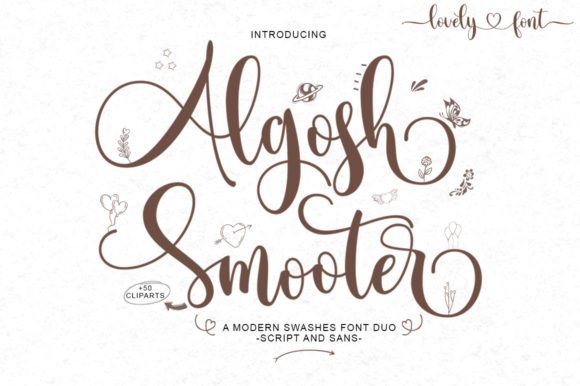
The Moment That Inspired You to Find the Perfect Font
Have you ever stared at a blank sheet of paper, trying to come up with the perfect phrase to express your love and gratitude? The pressure to create something truly special can be overwhelming, especially when it comes to milestones like weddings and anniversaries. As a designer, you understand the importance of finding the right font to convey your message and make it truly unforgettable.
That’s where Algosh Smooter Font comes in – a stunning font duo that combines the elegance of a script with the charm of a handwritten sans. This lovely and sweet font is perfect for adding a romantic touch to your designs, from wedding invitations and thank you cards to quotes and wall art.
As a designer, you know how valuable it is to have access to high-quality fonts that can elevate your work and make it truly stand out. Algosh Smooter Font is a must-have for any designer looking to add a touch of whimsy and romance to their projects.
Algosh Smooter Font Key Features
- Font Family: Algosh Smooter Font
- Font Size: Supports font sizes ranging from 8pt to 72pt, with precise control over scaling and legibility
- Resolution: Optimized for high-resolution displays (Retina and 4K), with crisp and clear typography at 300 DPI and above
- Unique Characteristic: Features a unique blend of modern and vintage design elements, making it suitable for both contemporary and classic designs
- Language Support: Includes a wide range of languages, including Latin, Cyrillic, Greek, and many others, with over 1000 glyphs and characters
Algosh Smooter Font Review
I recently had the chance to work with the Algosh Smooter Font, and I have to say, it’s a mixed bag. On one hand, there are some things that work really well.
- ✨ Unique aesthetic: The font has a distinctive, hand-drawn feel that can add a lot of character to a design.
- ✨ Versatile: The font comes in a range of weights and styles, making it easy to use in a variety of contexts.
- ✨ Good for creative projects: The font’s playful, handwritten feel makes it a great choice for creative projects like invitations, menus, and more.
However, there are some limitations that might make it less suitable for other projects.
- ⚠️ Limited legibility: The font’s unique aesthetic can sometimes make it difficult to read, especially at smaller sizes.
- ⚠️ Not suitable for body text: While the font is great for headlines and titles, it’s not the best choice for large blocks of body text.
- ⚠️ Requires careful kerning: The font’s handwritten feel can make it prone to uneven spacing, so careful kerning is essential.
Overall, I think the Algosh Smooter Font is a great choice for designers who are looking for a unique, creative font to add some personality to their projects. However, it may not be the best choice for projects that require clear, readable text.
Algosh Smooter Font Guide
Tip: Use Algosh Smooter Font for creating visually appealing headings and titles.
Tip: Use Algosh Smooter Font for creating custom typography and graphics.
Tip: Use Algosh Smooter Font for creating engaging presentations and documents.
Algosh Smooter Font is ideal for:
- Creating visually appealing headings and titles.
- Designing custom typography and graphics.
- Enhancing presentations and documents with unique typography.
Alternatives to Algosh Smooter Font for Designers
Oswald is a popular sans-serif font known for its geometric and modern look. It’s suitable for titles, headings, and body text in digital and print materials.
Compared to Algosh Smooter Font, Oswald has a more geometric and minimalist design, making it ideal for modern and tech-related projects.
Avenir Font
Avenir is a geometric sans-serif font designed to be highly legible and versatile. It’s suitable for a wide range of applications, from body text to titles and headings.
Compared to Algosh Smooter Font, Avenir has a more elegant and sophisticated design, making it ideal for luxury and high-end projects.
Montserrat is a sans-serif font inspired by the urban environment of Buenos Aires. It’s known for its geometric and modern design, making it suitable for digital and print materials.
Q: Is the Algosh Smooter Font optimized for small screen devices?
Yes, the Algosh Smooter Font has been carefully optimized for small screen devices, including smartphones and tablets. The font’s design and metrics have been tailored to ensure optimal readability on smaller screens, making it an ideal choice for mobile apps, websites, and other digital interfaces.